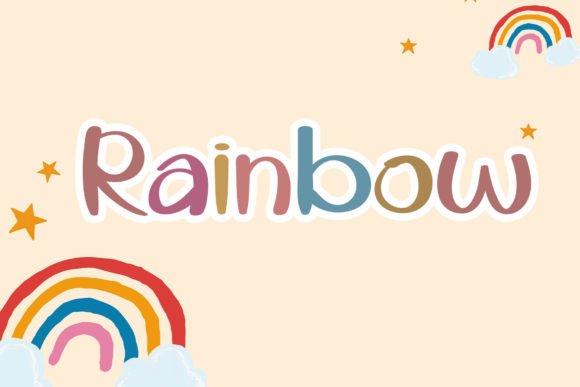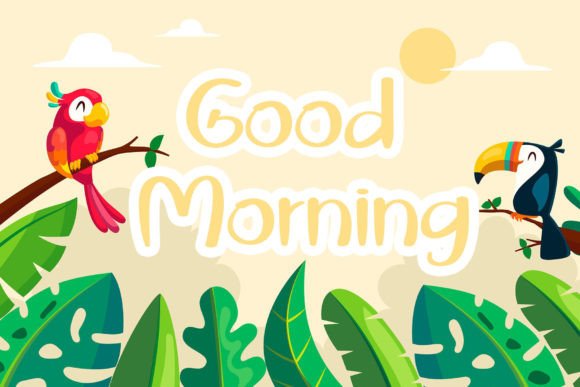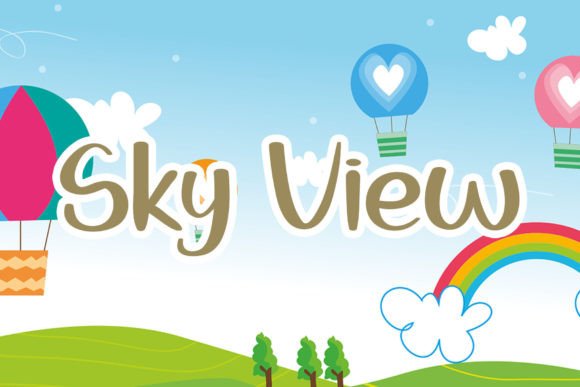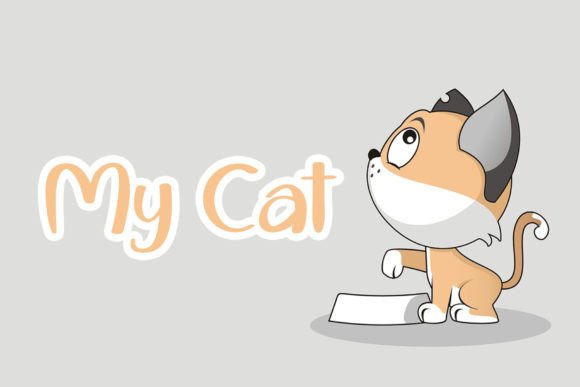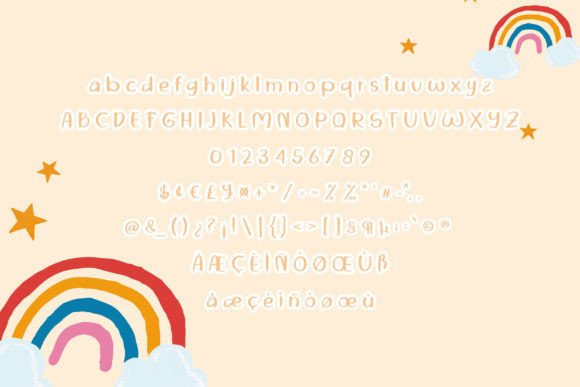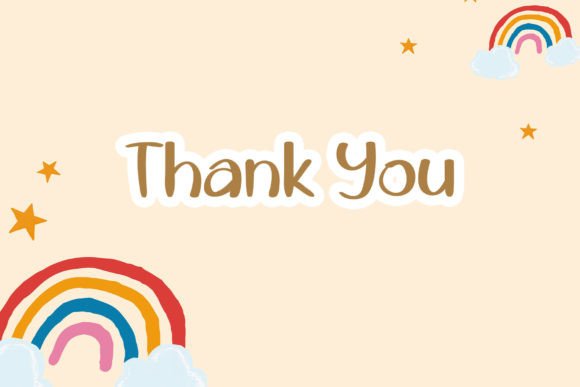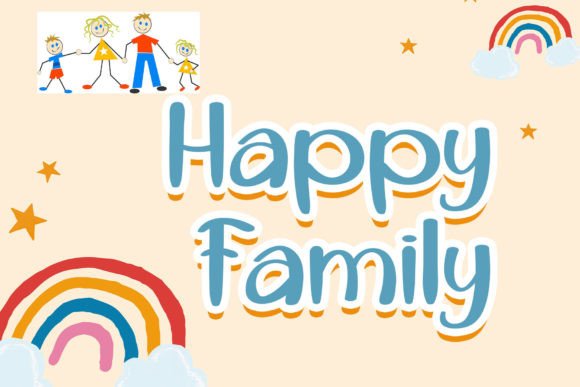
Introducing Happy Family Font: The Perfect Addition to Your Design Arsenal
Are you tired of using the same old fonts in your designs? Look no further! Happy Family Font is a fun and casual handwritten font that’s sure to bring a touch of personality to your projects. Incredibly versatile, this font is suitable for a wide pool of design ideas, making it a must-have for designers and crafters alike.
What Makes Happy Family Font So Special?
Happy Family Font is a unique and charming handwritten font that’s perfect for adding a personal touch to your designs. Its casual and playful vibe makes it ideal for a variety of projects, from wedding invitations and party decorations to branding and advertising materials. The font’s versatility is unmatched, allowing you to use it for both digital and print projects.
Key Features of Happy Family Font
- Handwritten style: Happy Family Font boasts a beautiful, handwritten style that’s sure to add a touch of warmth and personality to your designs.
- Versatile: This font is incredibly versatile, making it suitable for a wide range of design ideas, from formal to informal projects.
- Easy to read: Despite its casual style, Happy Family Font is easy to read, making it perfect for body text and headings.
Design Ideas to Get You Started
Now that you’ve learned about the amazing features of Happy Family Font, it’s time to get creative! Here are some design ideas to get you started:
- Wedding invitations: Add a personal touch to your wedding invitations with Happy Family Font. It’s perfect for creating beautiful, handmade-style invitations that will set the tone for your special day.
- Party decorations: Create custom party decorations, such as banners, garlands, and signs, using Happy Family Font. It’s a great way to add a playful touch to your party planning.
- Branding and advertising: Use Happy Family Font to create eye-catching branding and advertising materials, such as logos, business cards, and brochures.
- Digital graphics: Create stunning digital graphics, such as social media graphics, blog posts, and email newsletters, using Happy Family Font.
Tips for Using Happy Family Font
To get the most out of Happy Family Font, here are some tips to keep in mind:
- Pair it with other fonts: Experiment with pairing Happy Family Font with other fonts to create a unique and visually appealing design.
- Use it for headings and body text: Happy Family Font is easy to read, making it perfect for both headings and body text.
- Experiment with colors: Try out different colors and color combinations to add an extra touch of personality to your designs.